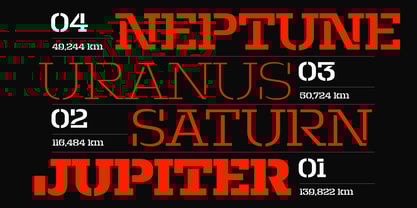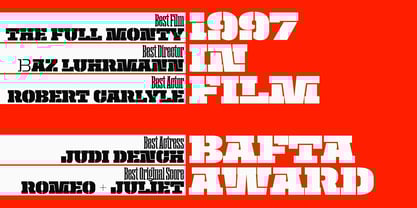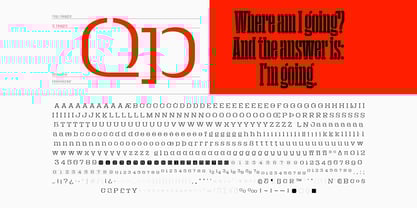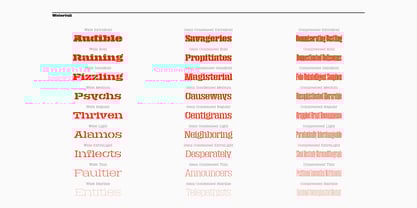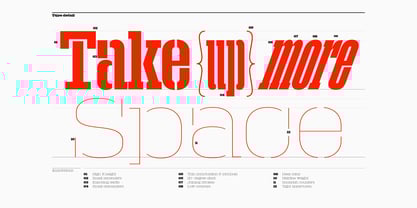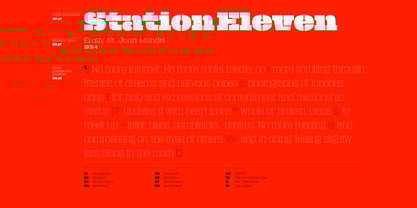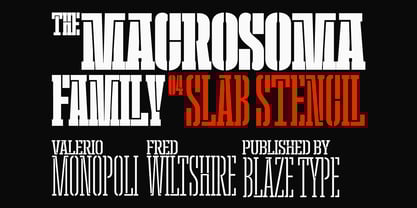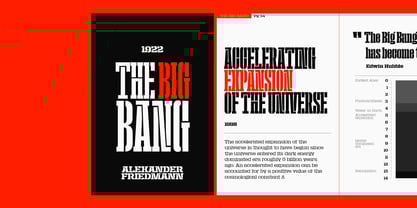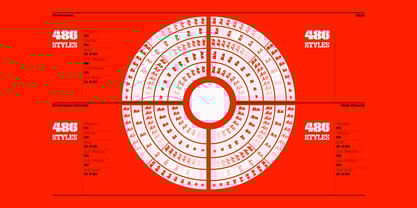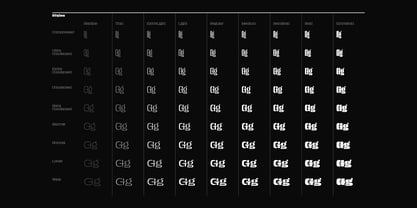
Macrosoma Slab Stencil
by Blaze Type
The Macrosoma Slab Stencil Font Family was designed by Fred Wiltshire, Valerio Monopoli and published by Blaze Type. Macrosoma Slab Stencil contains 81 styles and family package options. More about this family
Macrosoma might very well be the most expansive type family ever created. What began as a single-style condensed sans serif font has grown into an extraordinary collection of nearly two thousand single cuts. This impressive range spans almost every corner of the traditional typographic spectrum: from compressed to extended, hairline to black, sans and slab serif—each available in stencil form and with soft edges.
Despite its remarkable versatility, Macrosoma remains a truly distinctive and instantly recognisable font. It boasts several unique features, such as exceptionally short ascenders and thin punctuation, which set it apart from its sans serif contemporaries. These signature traits ensure that no matter which member of this extensive family you choose, your design will retain its uniqueness and stand out effortlessly. The third in chronological order among the many families within this massive typeface, Macrosoma Slab is the serif brother of the core grotesque family.
Designers: Fred Wiltshire, Valerio Monopoli
Foundry: Blaze Type